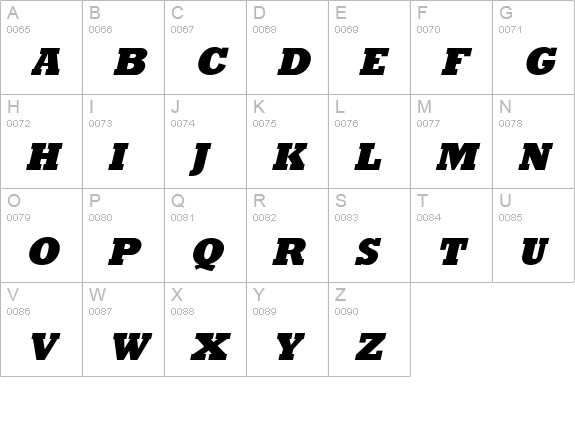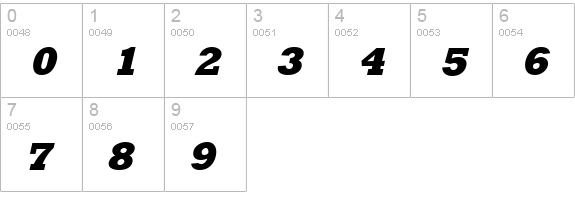
Rockney Extrabold Italic is an extra-heavy, attention-grabbing, italic variant in the Rockney typeface family \xE2\x80\x94 well suited to high-impact headlines, posters, and bold branding.
Introducing Rockney Extrabold Italic font - a bold and dynamic typeface designed to make a statement. Its sharp angles and sleek curves exude a sense of modernity and strength, perfect for grabbing attention and adding a touch of sophistication to any design project. Whether you're creating a striking headline, a powerful logo, or eye-catching branding materials, Rockney Extrabold Italic is sure to leave a lasting impression. And the best part? This versatile font is available for free download at FontsMarket.com! Embrace the power of Rockney Extrabold Italic and take your designs to the next level with this striking typeface that commands attention and makes a bold statement. Download it now and let your creativity shine!